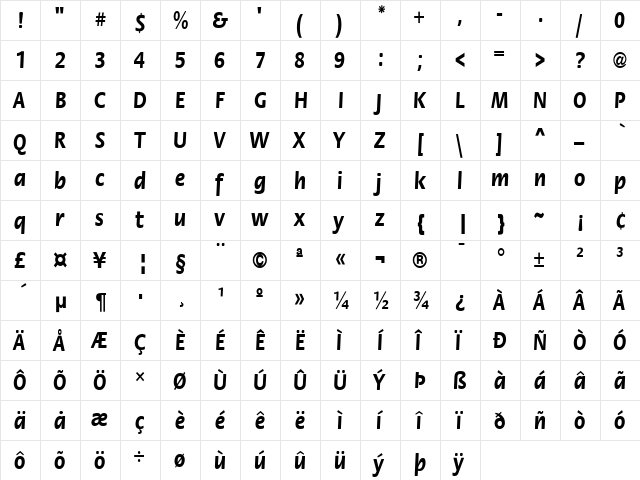
FloraCnd Bold Font Preview
FloraCnd Bold
Design Context for FloraCnd Typeface
FloraCnd takes a measured approach to typography — its balanced proportions and neutral character make it a reliable workhorse for both digital and print work. The heavy weight commands attention and anchors typographic hierarchies.
Pro Tip: Use FloraCnd in both headline and body roles to test its range before committing to a single application.